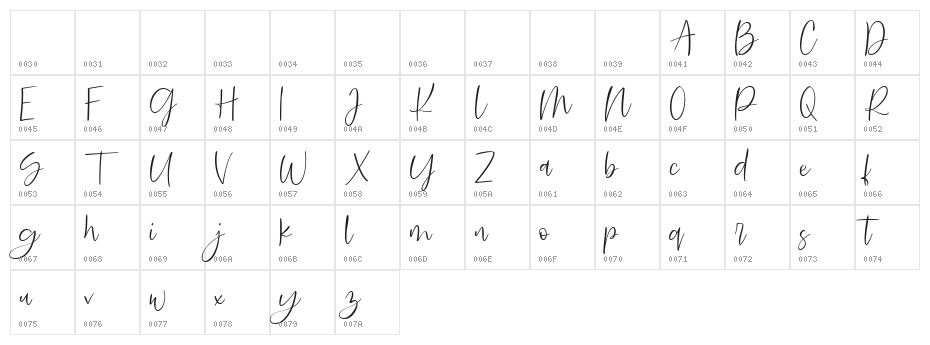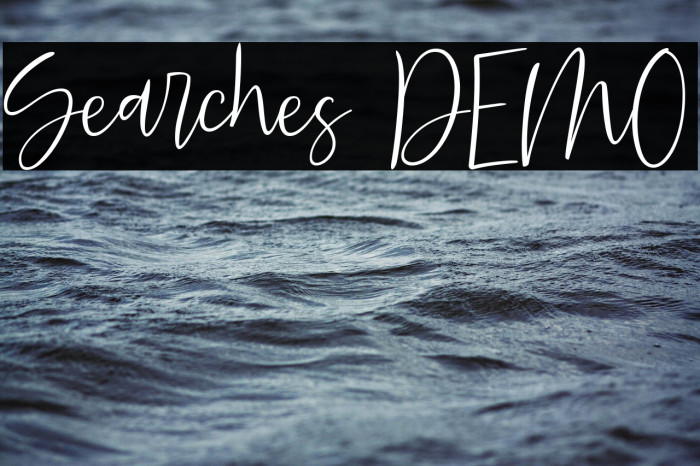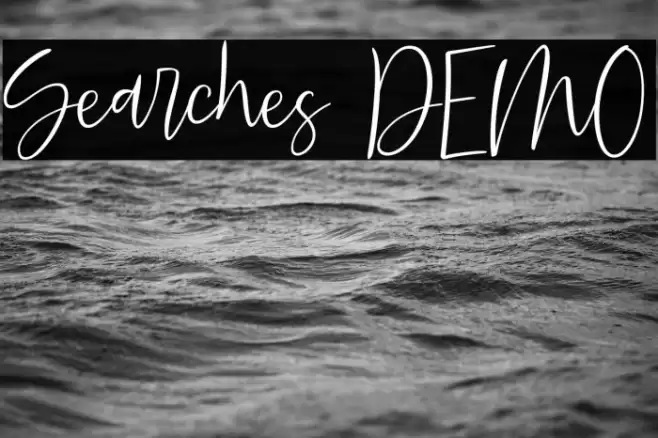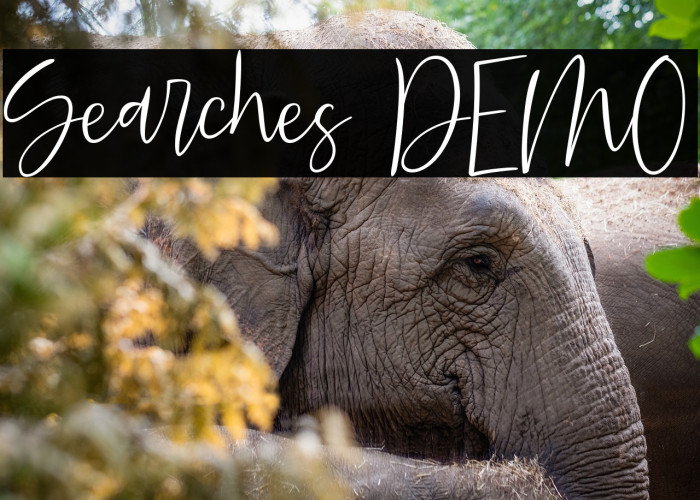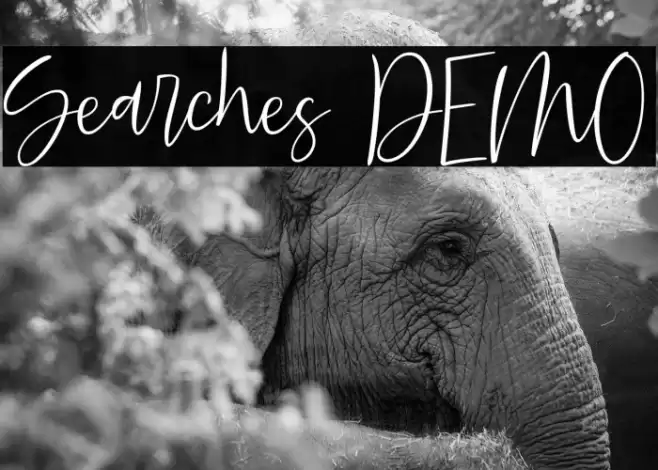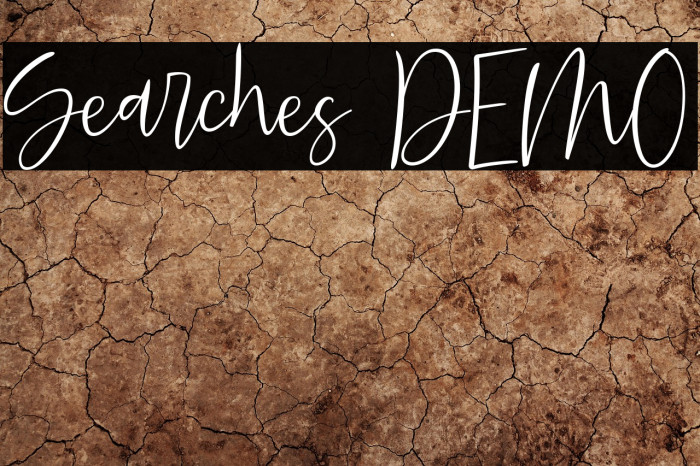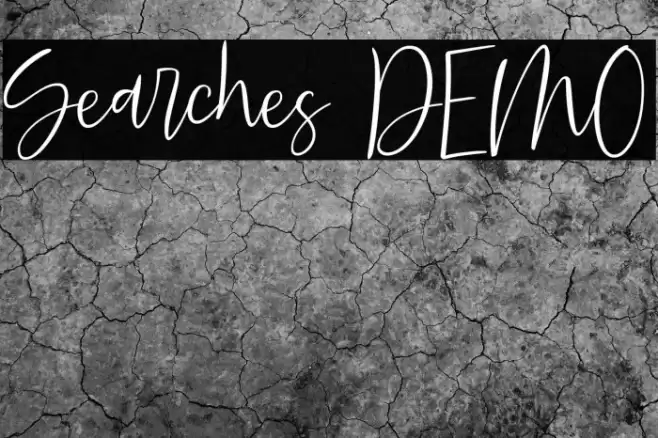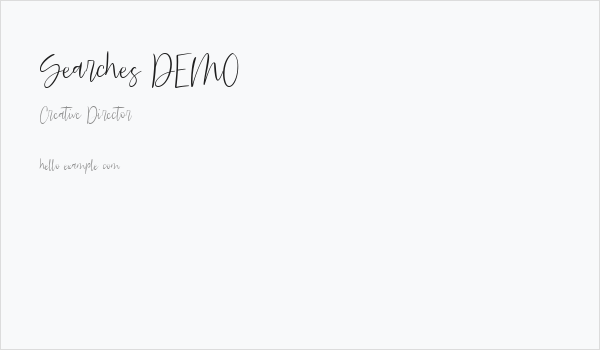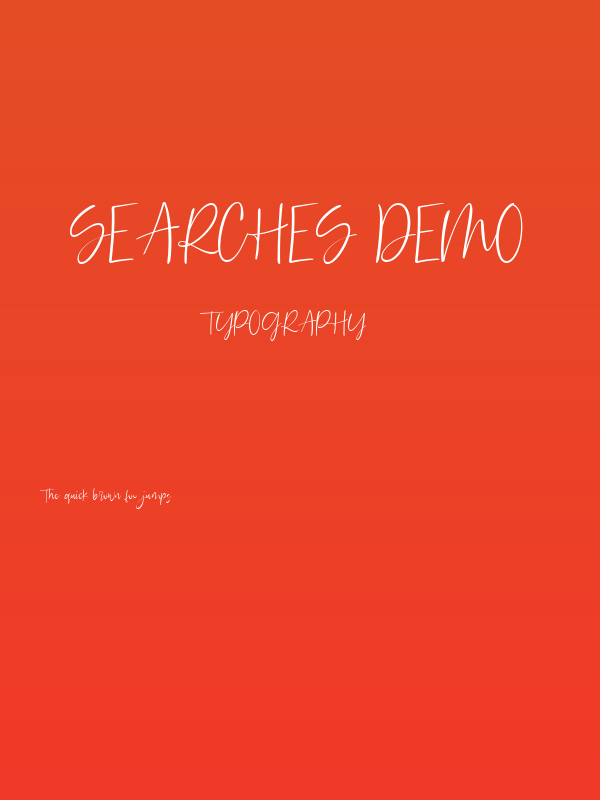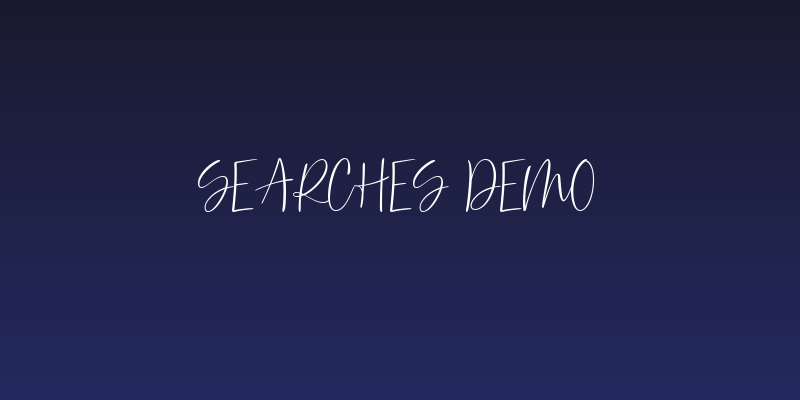
Searches DEMO Font
Searches DEMO Description
This font features a lively and elegant script style, characterized by its fluid, cursive strokes and a sense of movement. The uppercase letters are tall and slender, with a slight slant that adds a dynamic quality. The lowercase letters maintain a consistent flow, with some characters featuring loops and flourishes that enhance the overall aesthetic. The font has a handwritten feel, with varying stroke widths that add a touch of sophistication and charm. It's perfect for projects that require a personal, artistic touch, such as invitations, greeting cards, or branding materials.
| Proposed Projects | Ideal for invitations, greeting cards, branding materials, and artistic projects. |